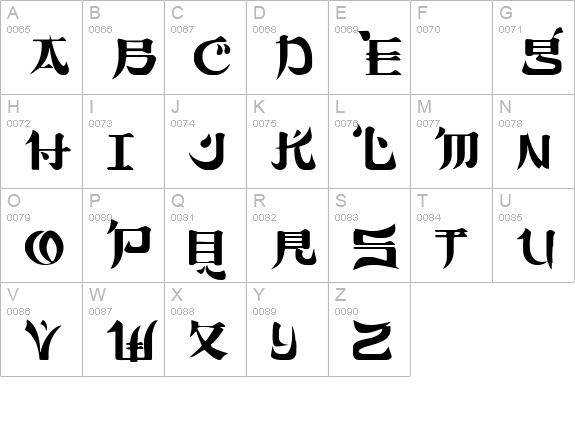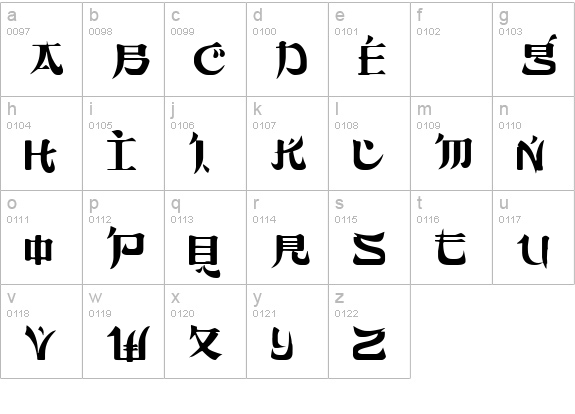
DickChamberlainsDeathF Font Details
DickChamberlainsDeathF font is a unique and stylish typeface that exudes a sense of mystery and elegance. Its intricate design features sharp edges and bold strokes, making it perfect for adding a touch of drama to your projects. This font is freely available to download at FontsMarket.com, allowing you to easily incorporate its striking aesthetic into your designs. Whether you're working on a poster, logo, or website, DickChamberlainsDeathF font is sure to make a statement and leave a lasting impression on your audience.